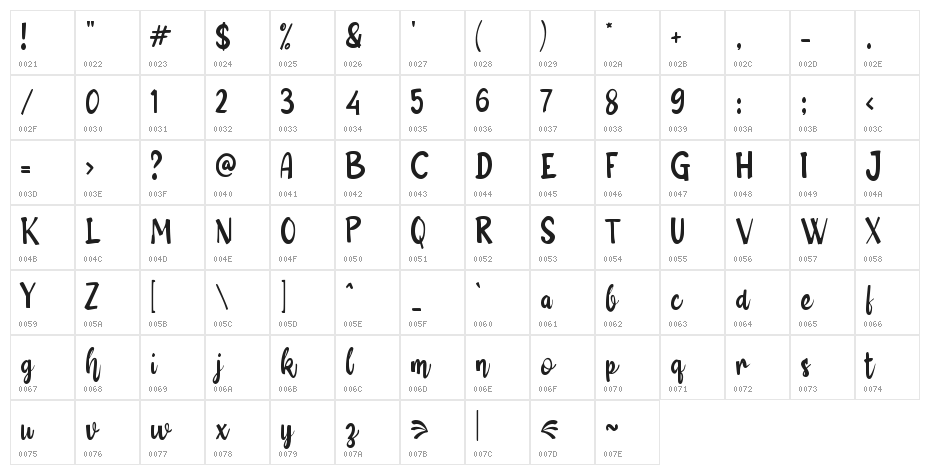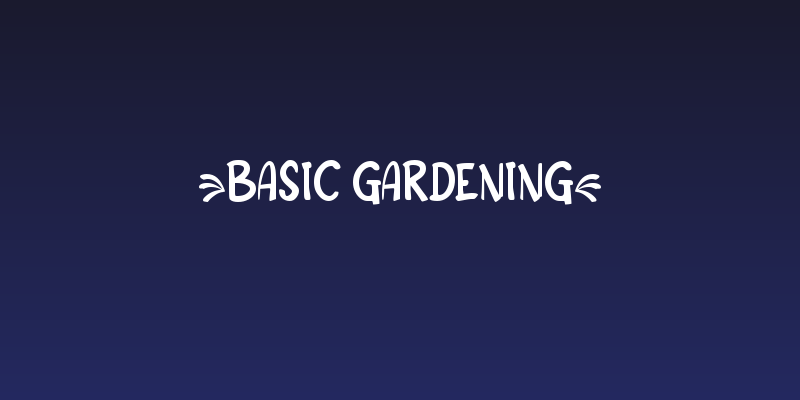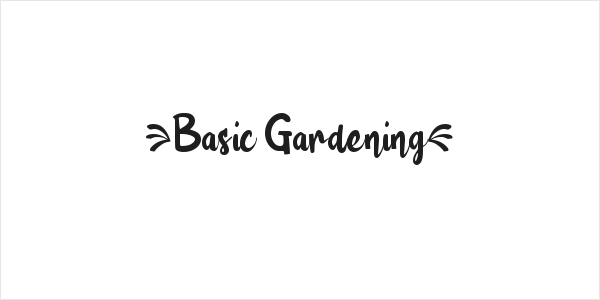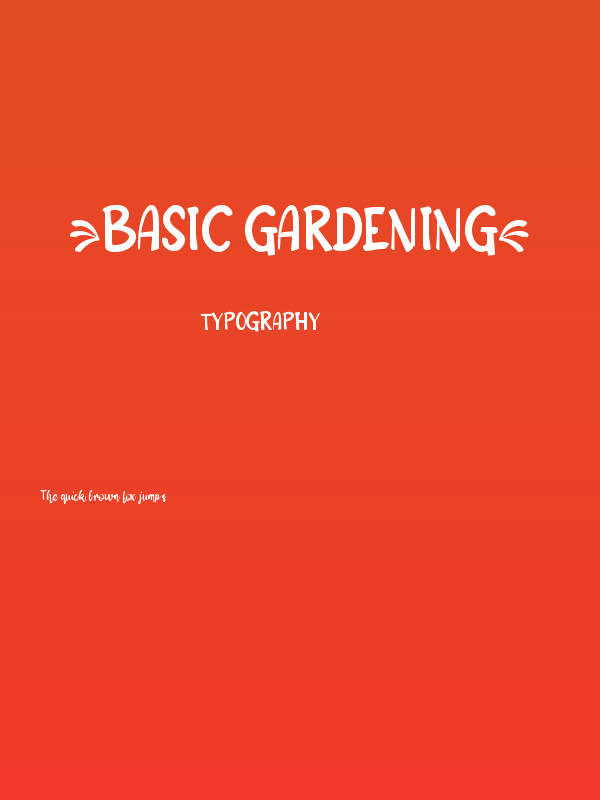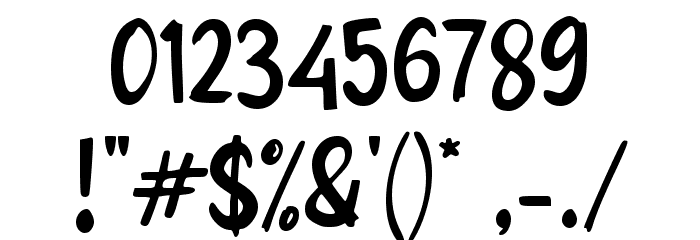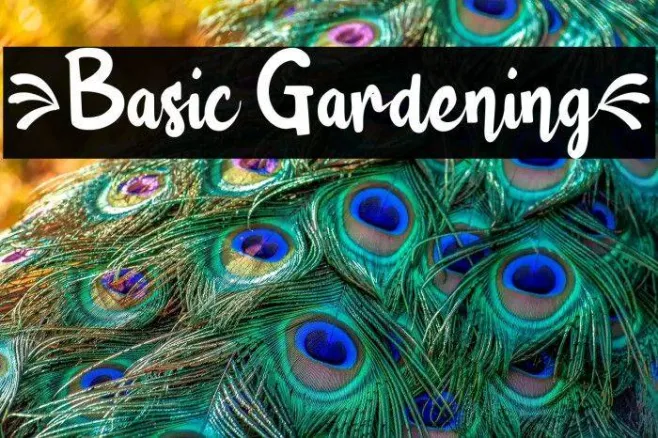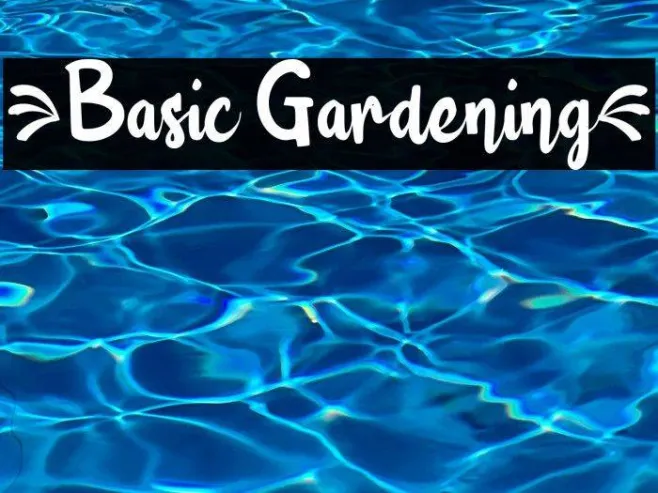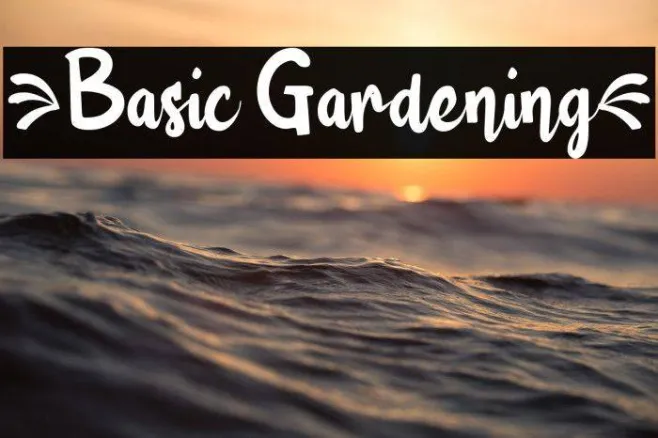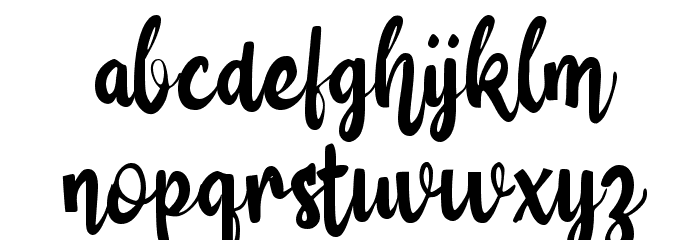
{Basic Gardening} Font
{Basic Gardening} Description
This font features a playful and whimsical style, characterized by its bold and slightly irregular letterforms. The uppercase letters are tall and slightly narrow, with a hand-drawn feel that adds a sense of charm and personality. The lowercase letters maintain this playful aesthetic, with some letters featuring loops and curls that enhance the font's lively appearance. The numerals are consistent with the overall style, offering a bold and approachable look. Special characters are included, maintaining the same playful and bold characteristics. This font is ideal for projects that require a fun and engaging visual element.
| Proposed Projects | Perfect for children's books, playful branding, greeting cards, and creative posters. |